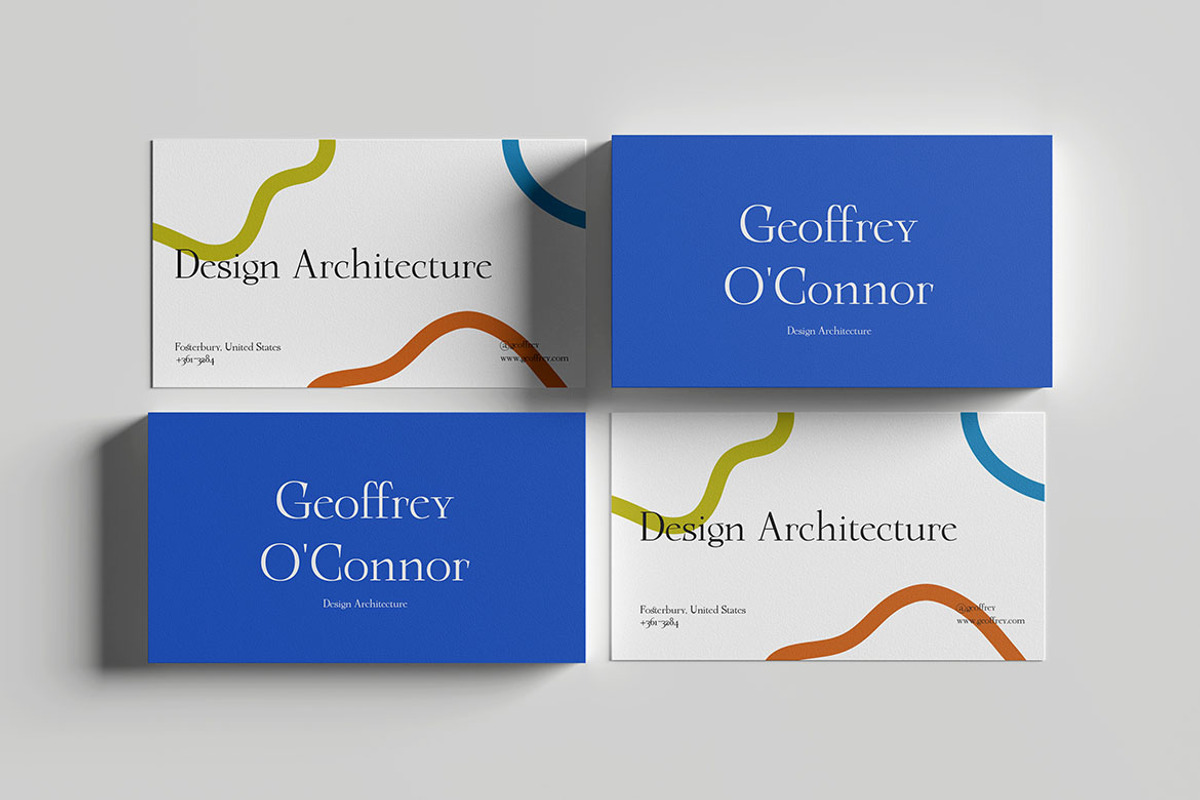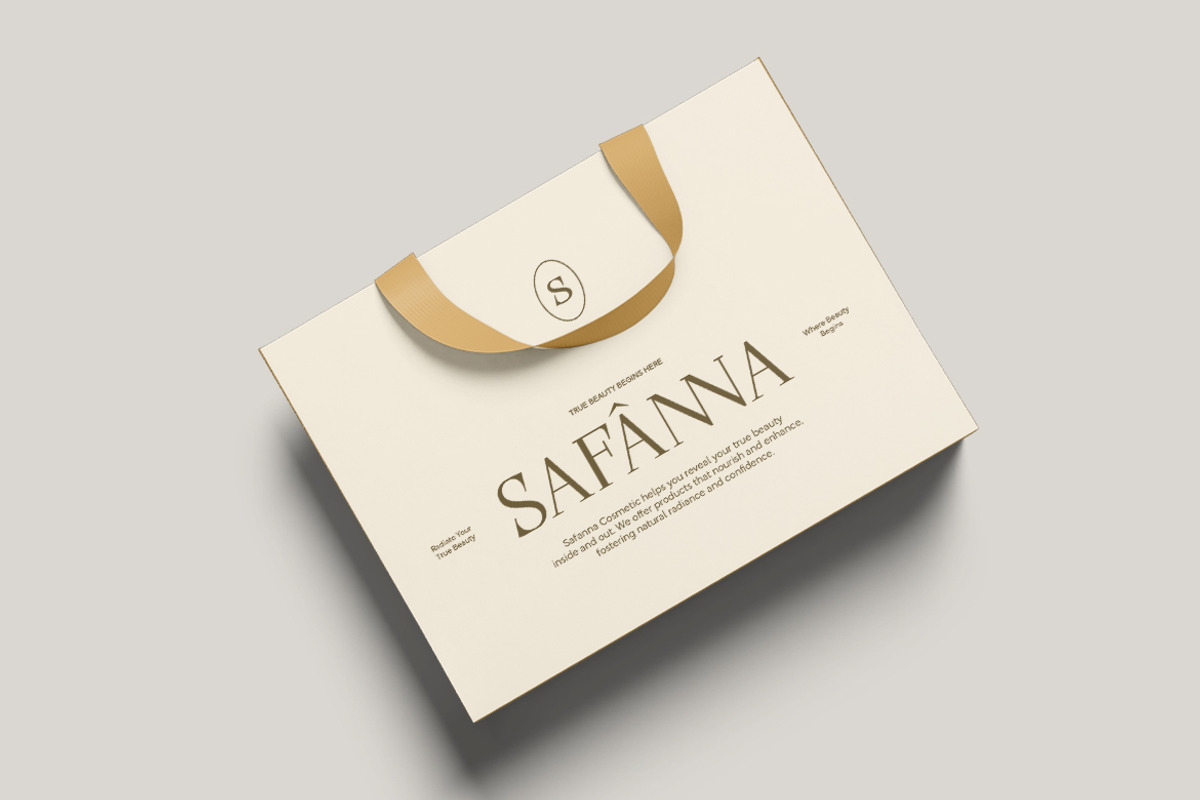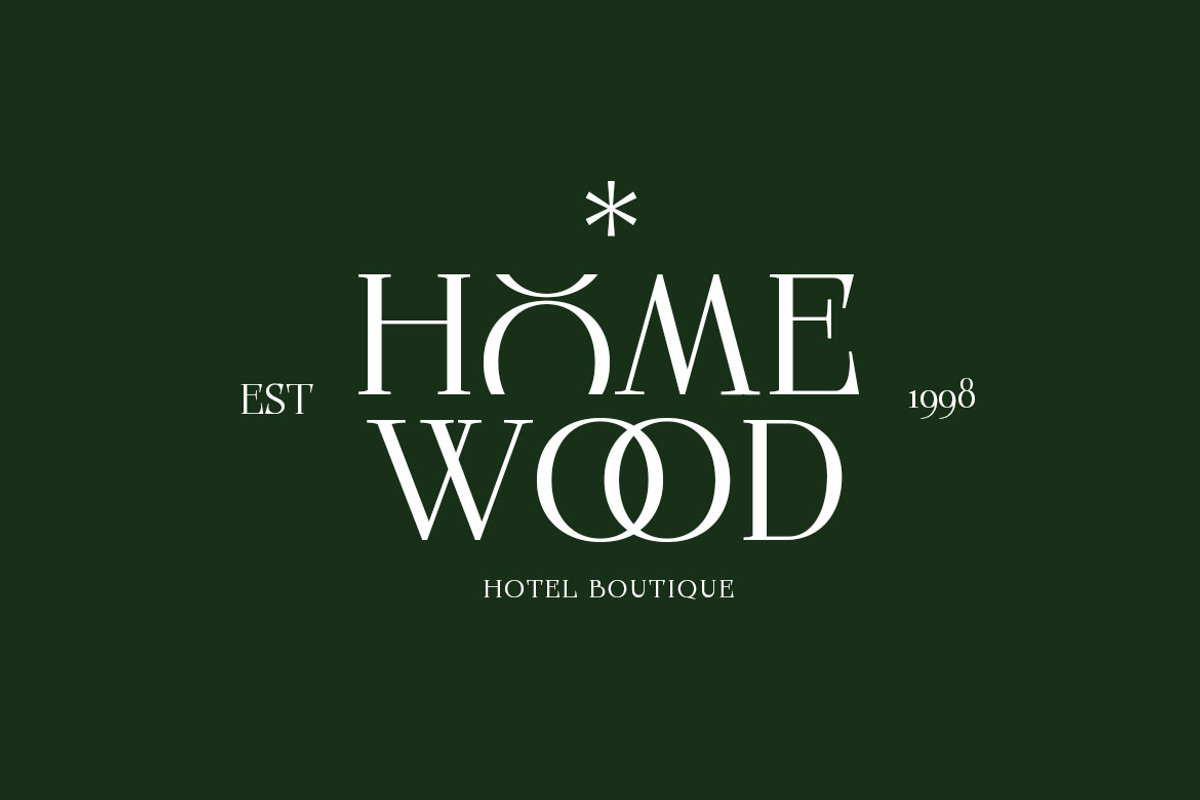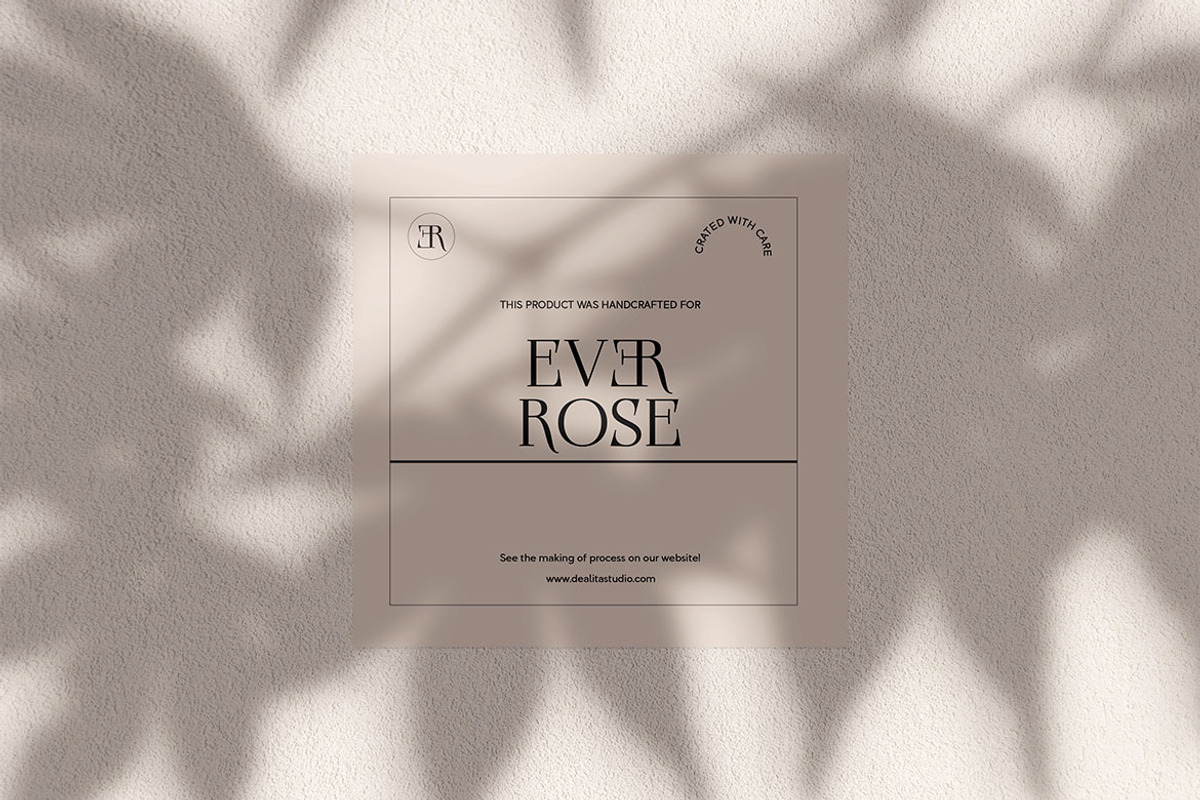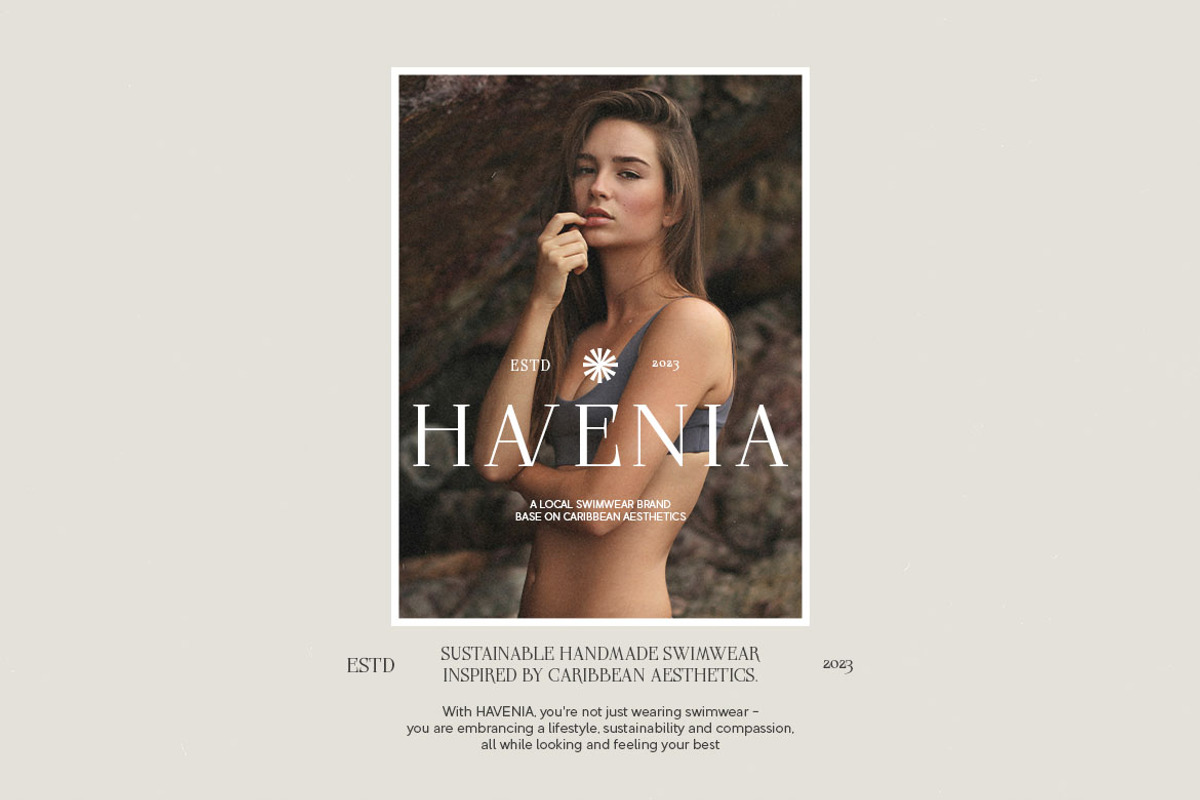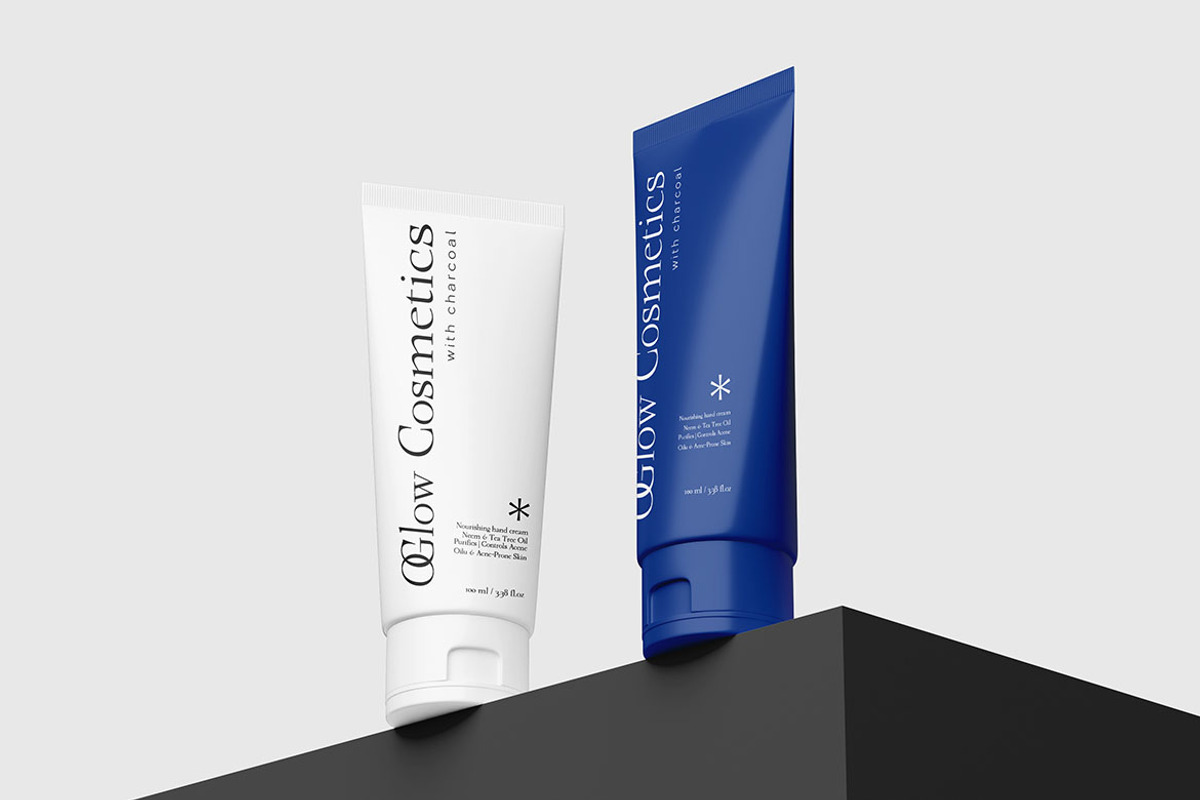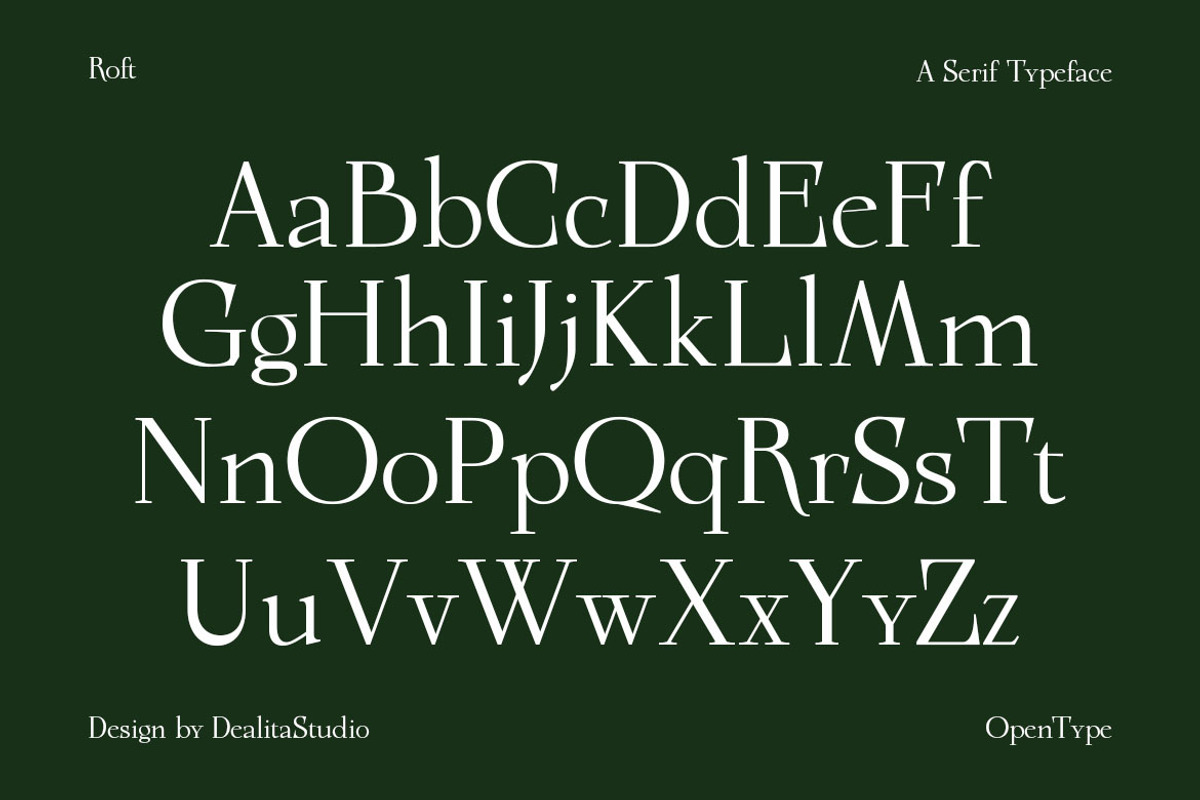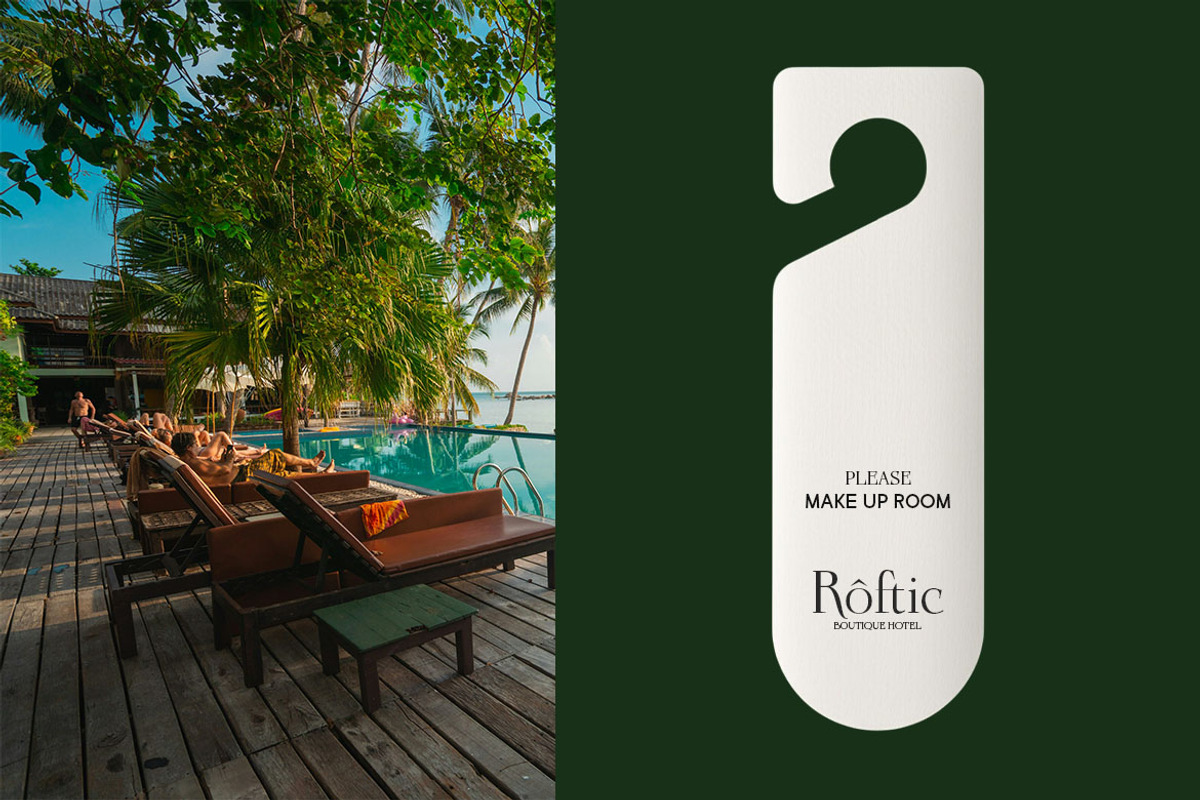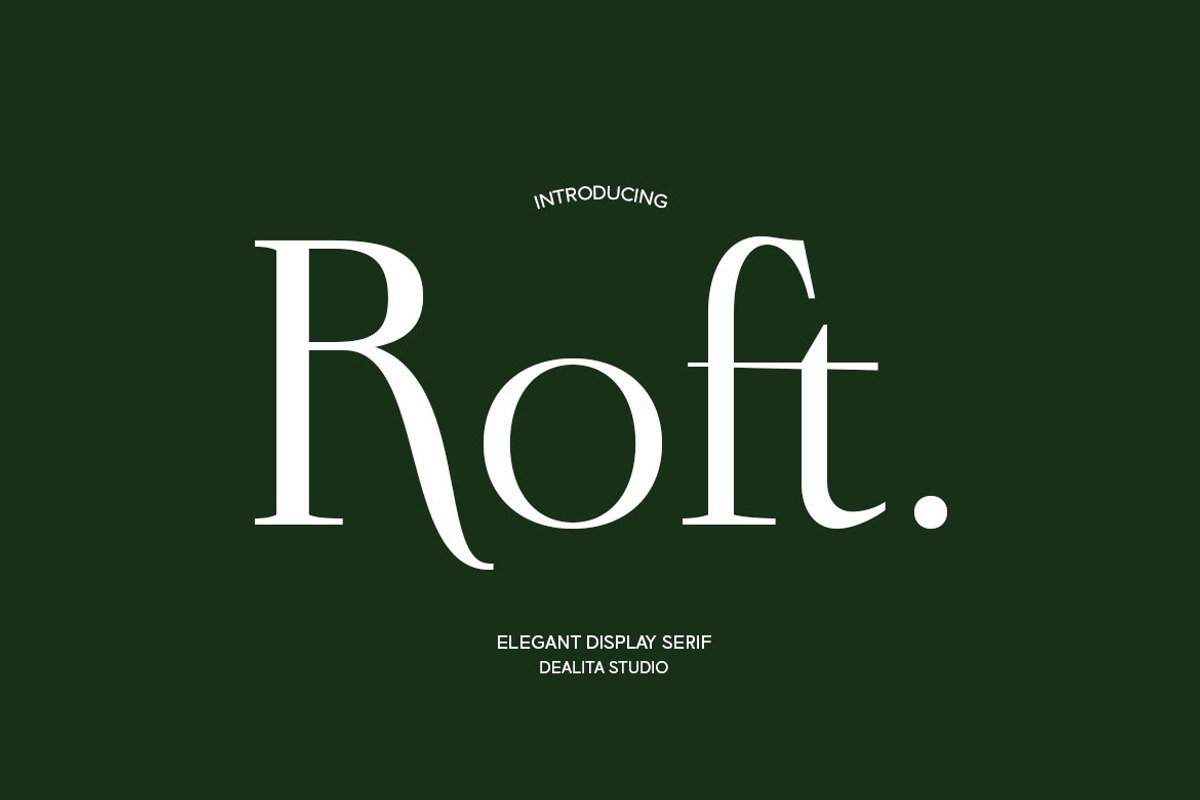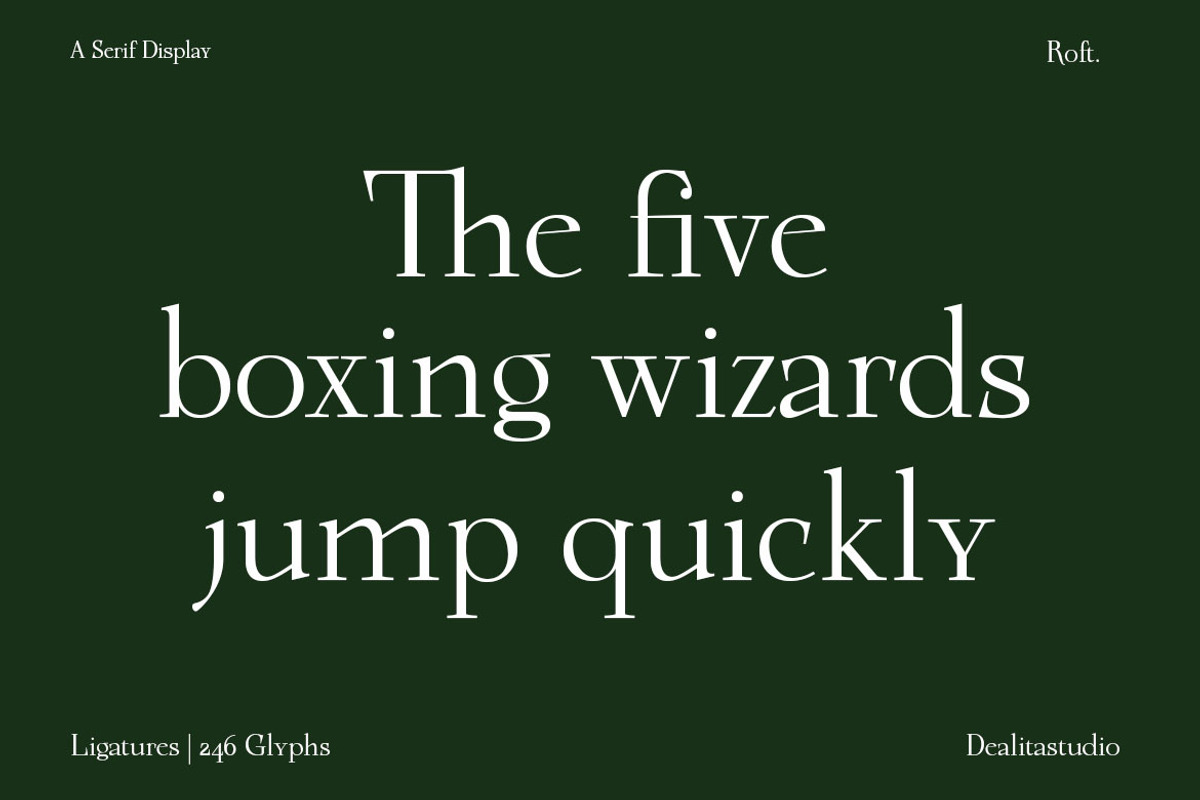
Roft - Quiet Luxury Minimalist Serif
Roft — Modern Minimalist Serif Roft is a sleek, contemporary serif engineered for Quiet Luxury and refined visual identities. Balancing clean geometry with subtle elegance, it brings a calm, sophisticated authority to high-end branding, minimalist packaging, and editorial layouts.
Best For:
- Quiet Luxury Branding & Minimalist Logos
- Fashion & Beauty Packaging
- Premium Skincare & Lifestyle Labels
- Editorial Design & Modern Book Covers
Technical Specs:
- High-Contrast Minimalist Serif